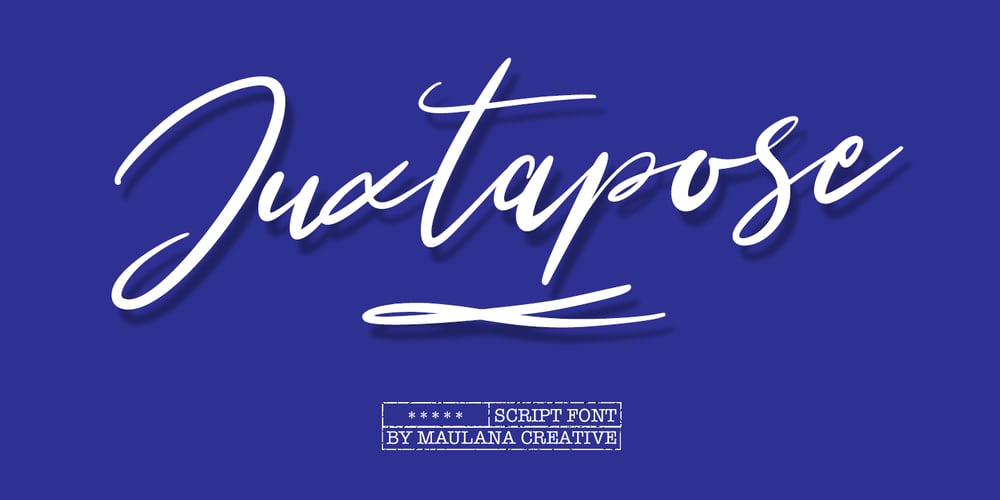
Juxtapose Font Family was designed by Gilang Maulana and published by Maulana Creative. Juxtapose contains 1 styles and family package options. Give your designs an authentic brush handcrafted feel. “Juxtapose” is perfectly suited to signature, stationery, logo, typography quotes, magazine or book cover, website header, flyer, clothing, branding, packaging design and more.Thanks for use this font.MaulanaCreative